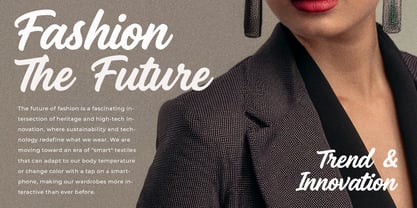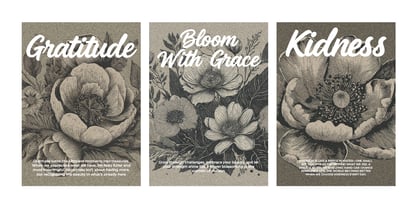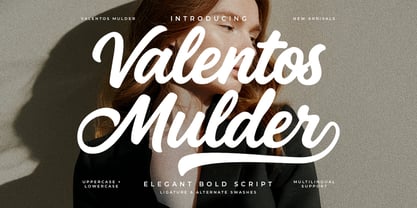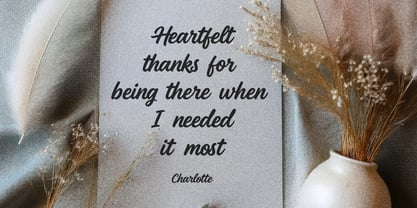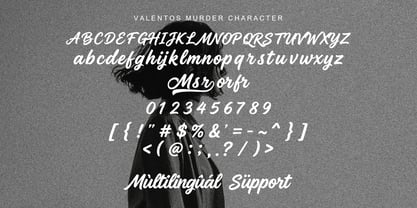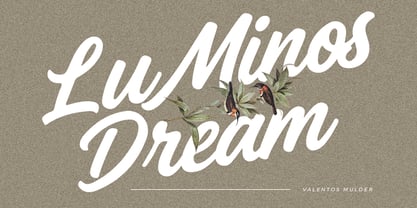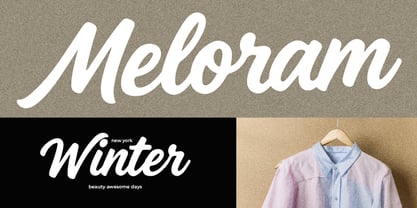
MC Valentos Mulder
by Maulana Creative
The MC Valentos Mulder Font Family was designed by Gilang Maulana and published by Maulana Creative. MC Valentos Mulder contains 1 styles. More about this family
Valentos Mulder is a sophisticated bold script typeface that strikes a perfect balance between expressive hand-drawn fluidly and refined modern aesthetics. Characterized by its thick, confident strokes and graceful ligatures, this font exudes a sense of high-end fashion and timeless elegance. Its smooth curves and distinct alternate swashes make it an ideal choice for luxury branding, editorial layouts, wedding invitations, and upscale advertising. Whether used for a striking header or a stylish quote, Valentos Mulder brings a professional and artisanal touch to any creative project.
Designers: Gilang Maulana
Foundry: Maulana Creative